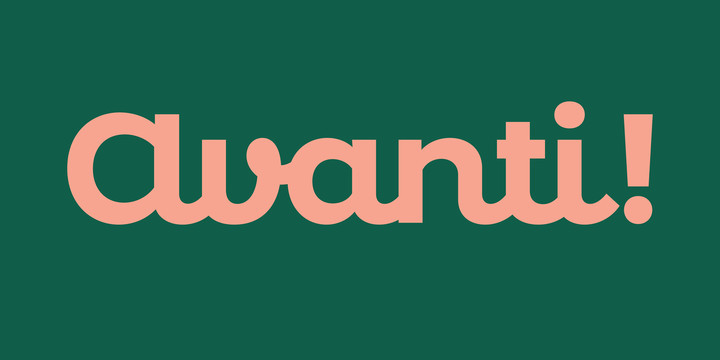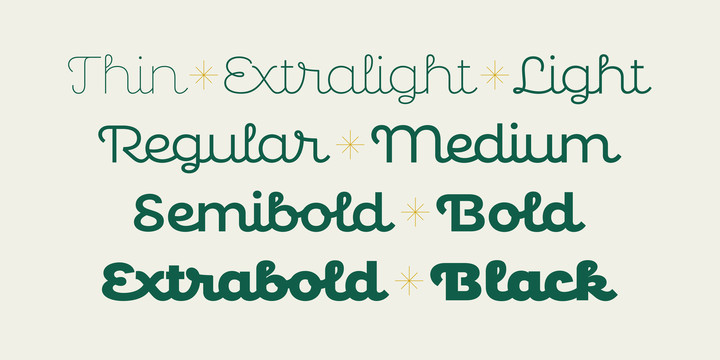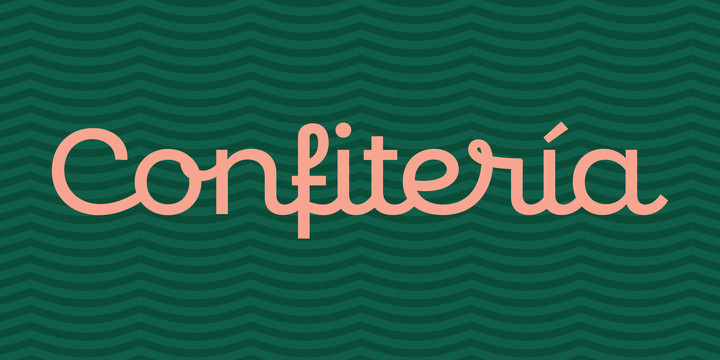
Confiteria Font
This font captures something of that simple and innocent beauty of traditional confiterías, where good manners will never go out of fashion, menus are elegant and time comes to a standstill to make way for life’s little pleasures. A confitería is a perfect place to share sweet tidbits with a friend or date, eavesdrop on the conversation at the next table, read a book, or just people-watch from the window. I celebrated my last birthday at one.
There is one iconic confitería in Buenos Aires that I love more than the rest because, some 60 years ago, it put up its marvellous sign and never took it down. Walking by it is sure to bring a smile to your face. It’s big. Very big. And the lettering in its name is written in a timelessly beautiful vertical script – the most attractive I have ever seen.